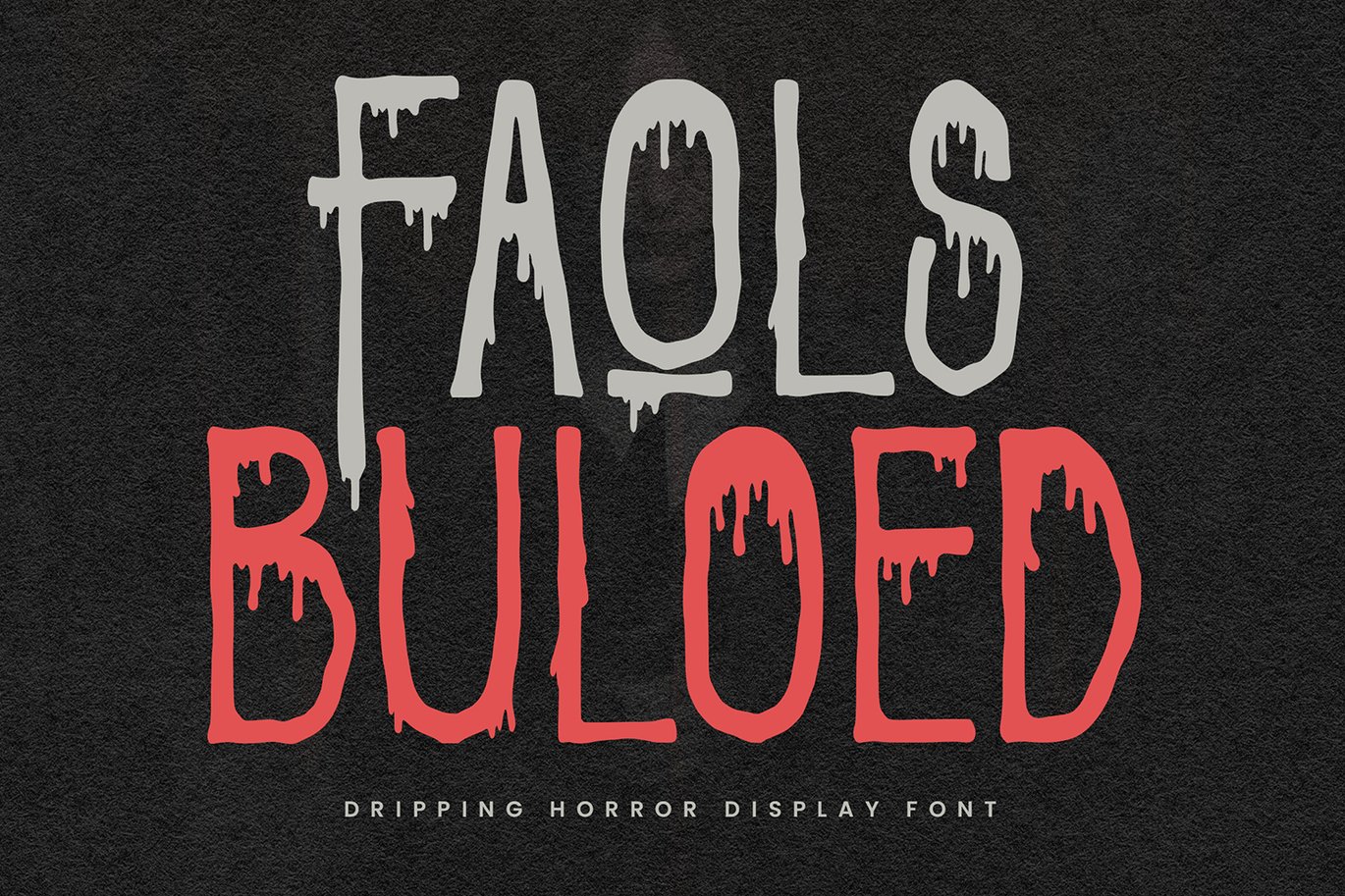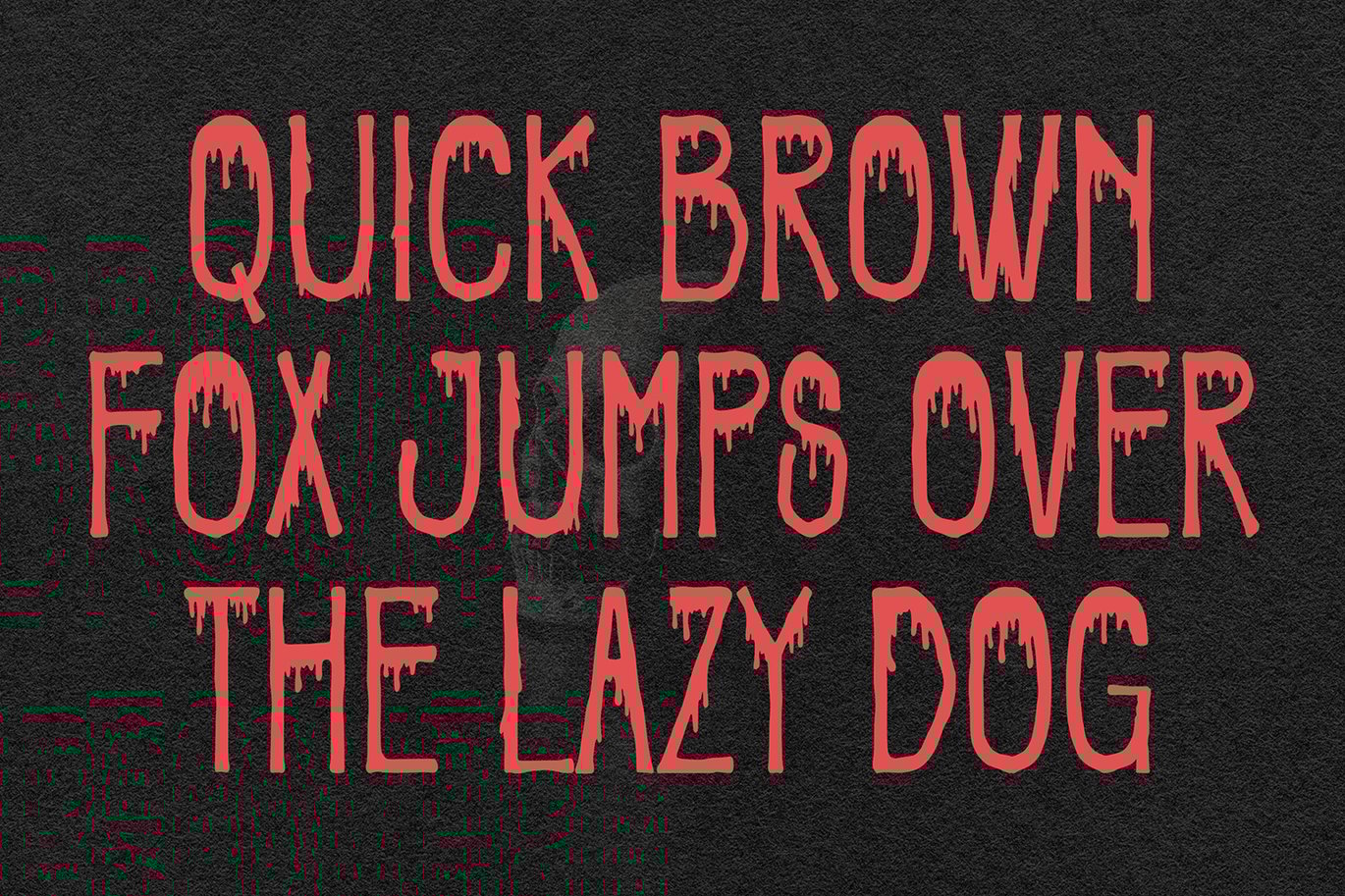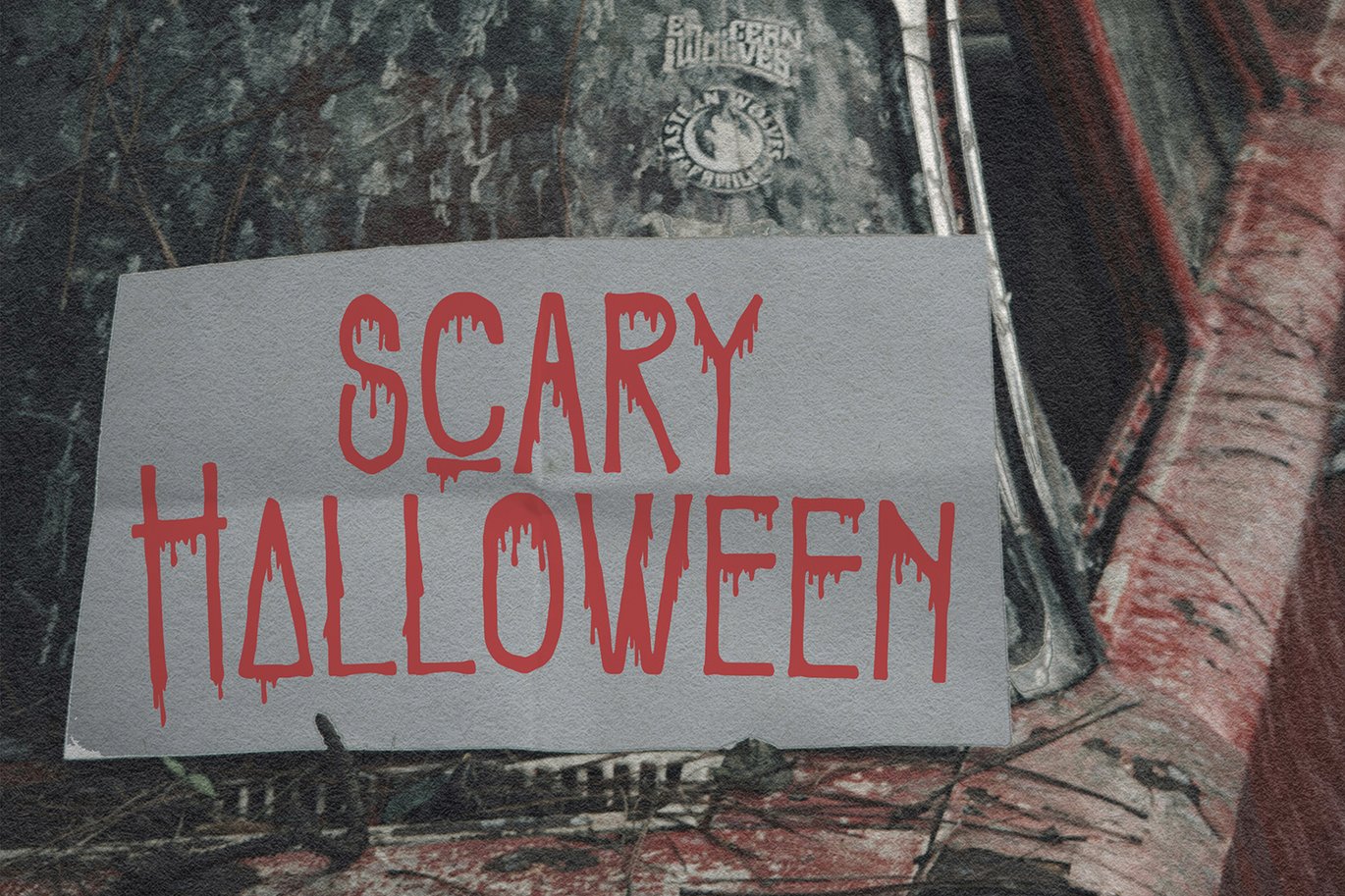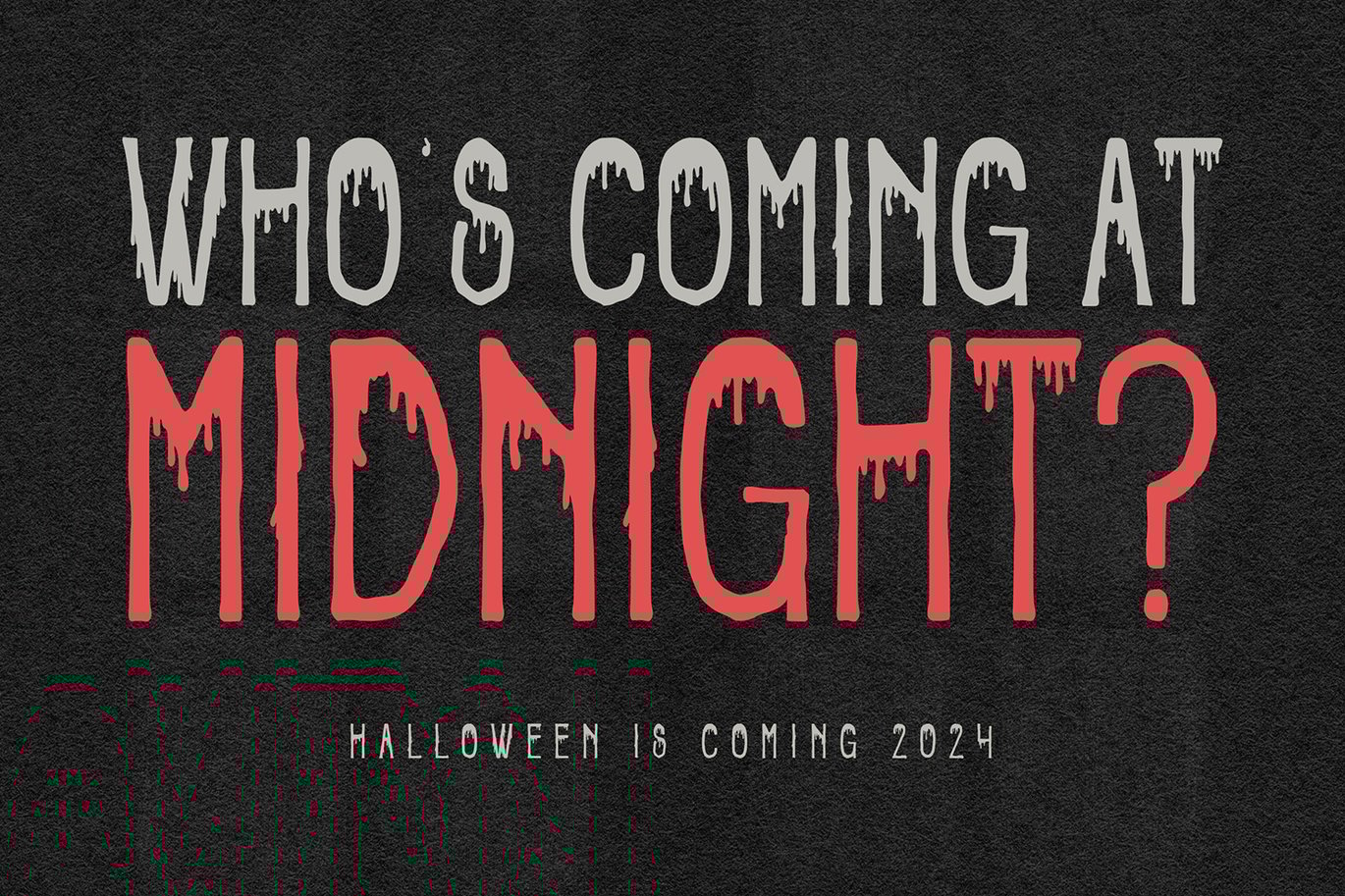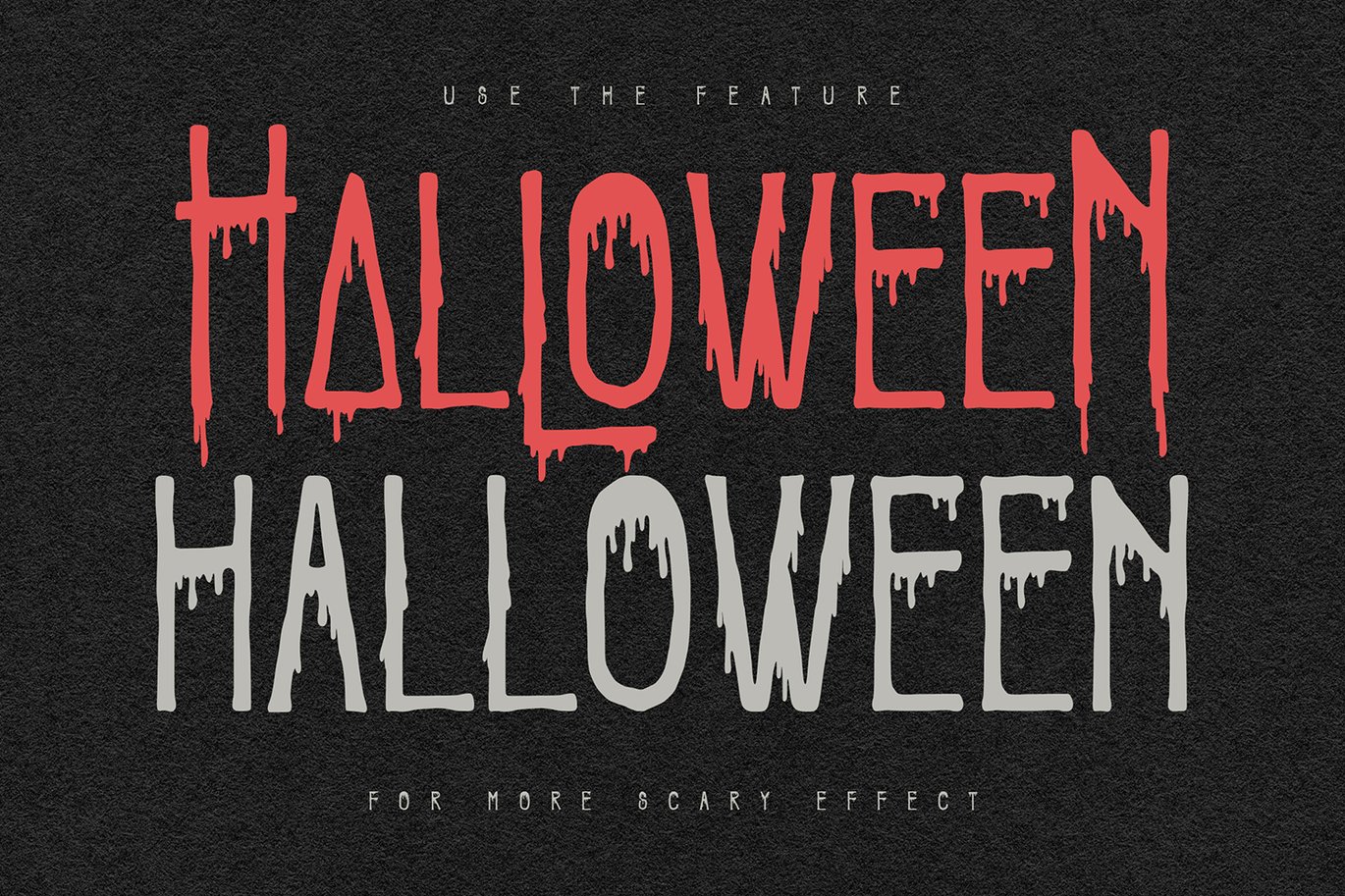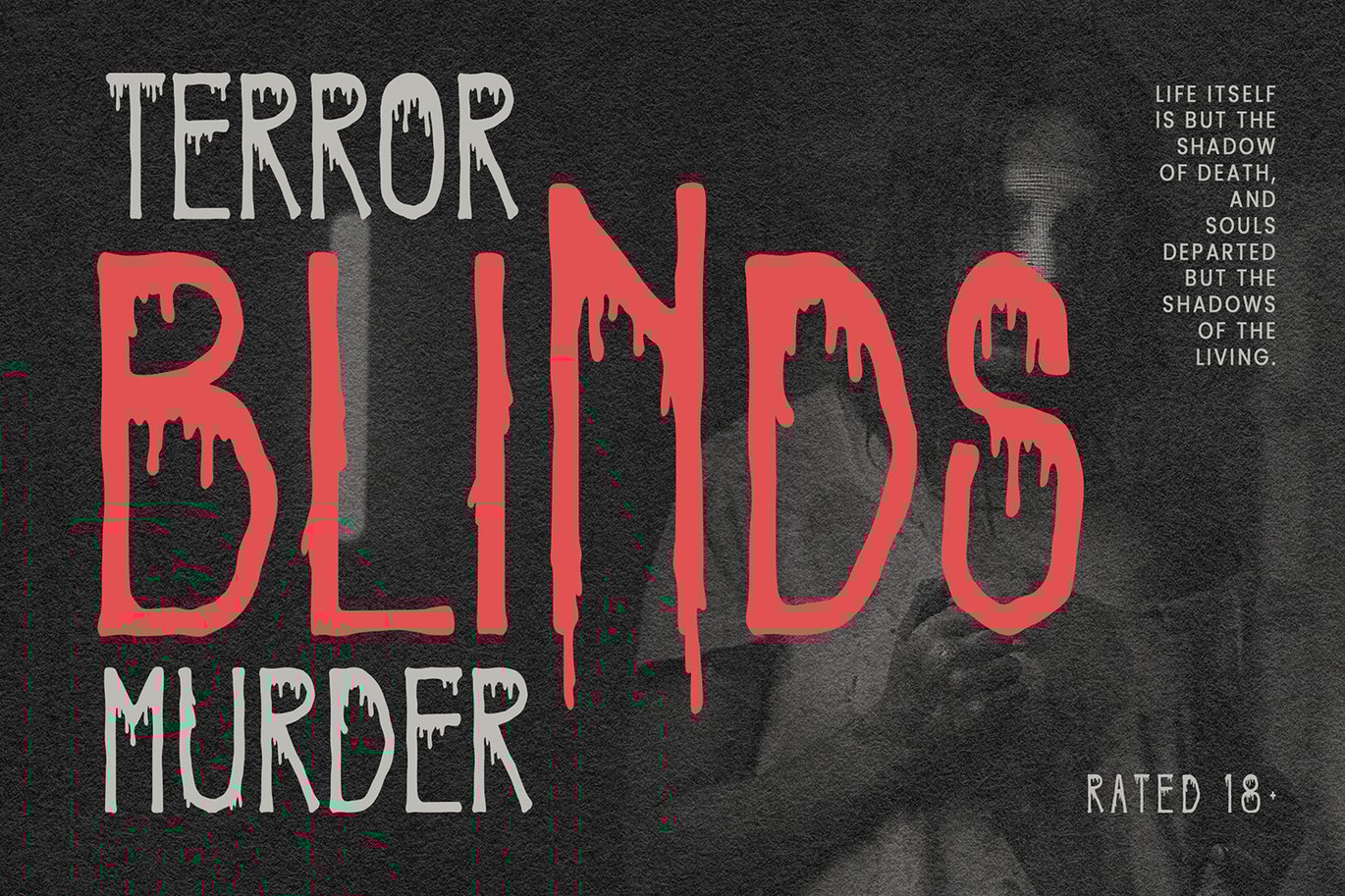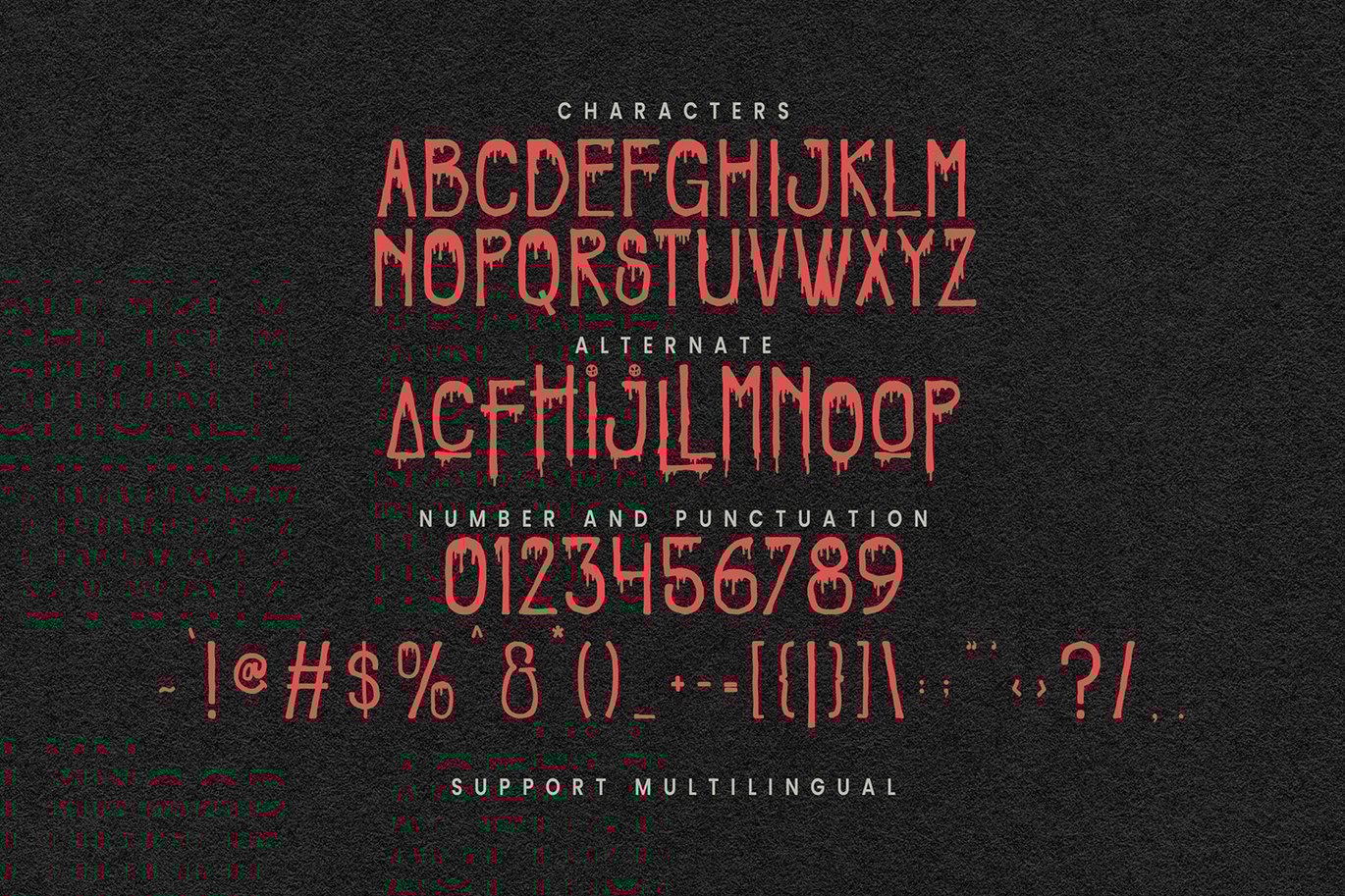
Faols Buloed Dripping Horror Display Font
Faols Buloed Dripping Horror Display Font. With Bold Sharp stroke, Upright and fun character with a bit of alternate. To give you an extra creative work. Faols Buloed font support multilingual more than 100+ language. This font is good for logo design, Social media, Movie Titles, Books Titles, a short text even a long text letter and good for your secondary text font with Script. Make a stunning work with Faols Buloed font.